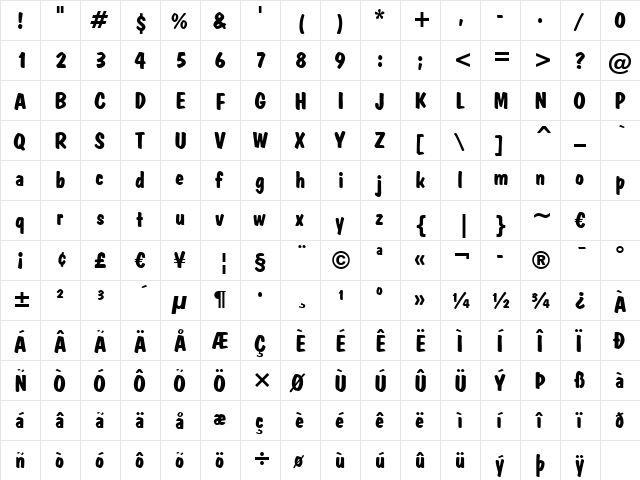
DomBold BT Regular
Design Context for DomBold BT Typeface
DomBold BT is a composed and adaptable typeface that performs quietly and consistently across a wide range of design contexts. Its bold stroke weight gives it real presence on the page.